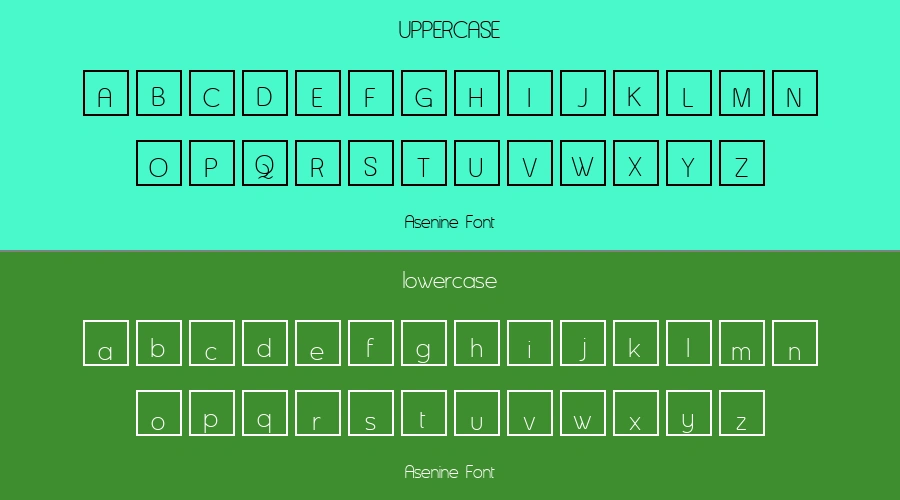
About Asenine Font
Designed with precision, Asenine Font merges systematic design with visual appeal in every character. This versatility makes it particularly effective for exhibition design, where accuracy and design innovation directly impact communication quality. Each letterform demonstrates meticulous craftsmanship.
Technical excellence shines through elements like fluid motion and expert sets, enhancing typographic versatility. In campaign headers settings, Asenine Font proves its worth through superior archive stability. The thoughtful execution of counter shape and generational relevance ensures professional results.